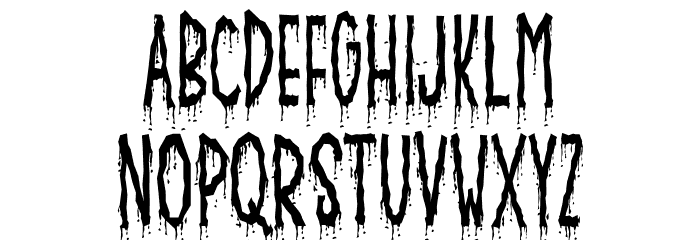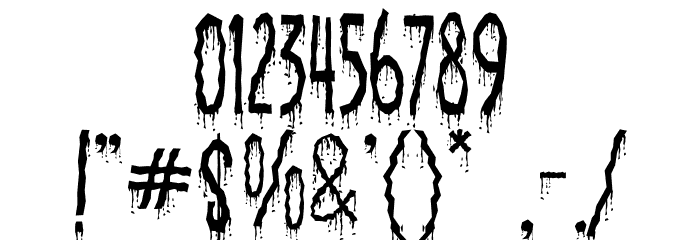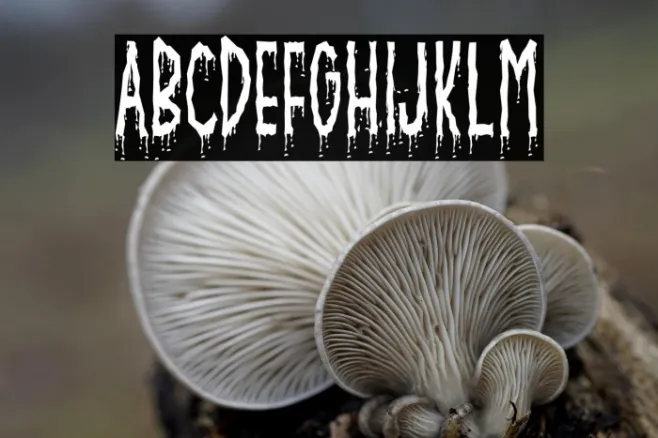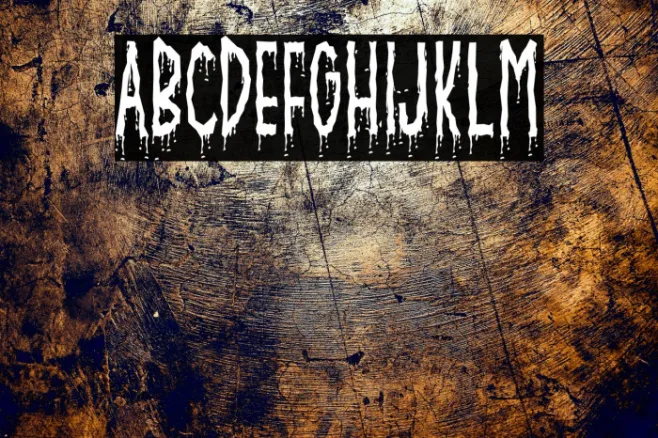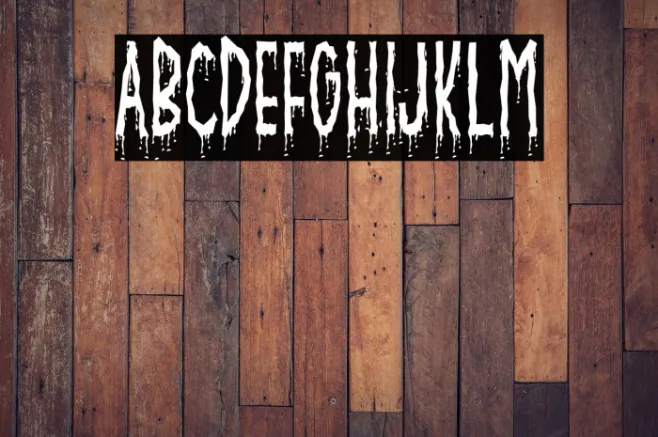
Crusterous Font
This font features a unique, distressed appearance with a dripping effect, reminiscent of melting or decaying material. The characters are bold and elongated, giving a striking and eerie look. The uppercase and lowercase letters maintain a consistent style, with jagged edges and irregular shapes that enhance the unsettling aesthetic. Numbers and special characters follow the same design, ensuring a cohesive visual theme. This font is ideal for projects requiring a dramatic and horror-inspired touch.
A bold, distressed font with a dripping, eerie effect.
- Font: Crusterous
- Proposed Projects: Perfect for Halloween-themed designs, horror movie posters, spooky event invitations, and haunted house branding.